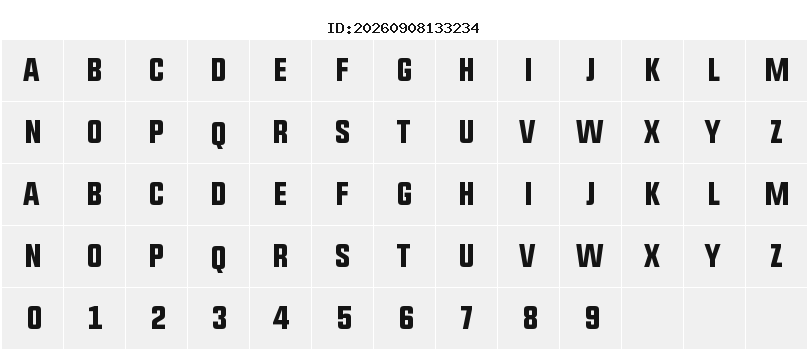
• Designer: Situjuh Nazara
About UPBOLTERS.otf
UPBOLTERS.otf is a modern, elegant sans-serif font designed for ultimate readability and visual harmony. Perfect for branding, headlines, web design, and print materials.